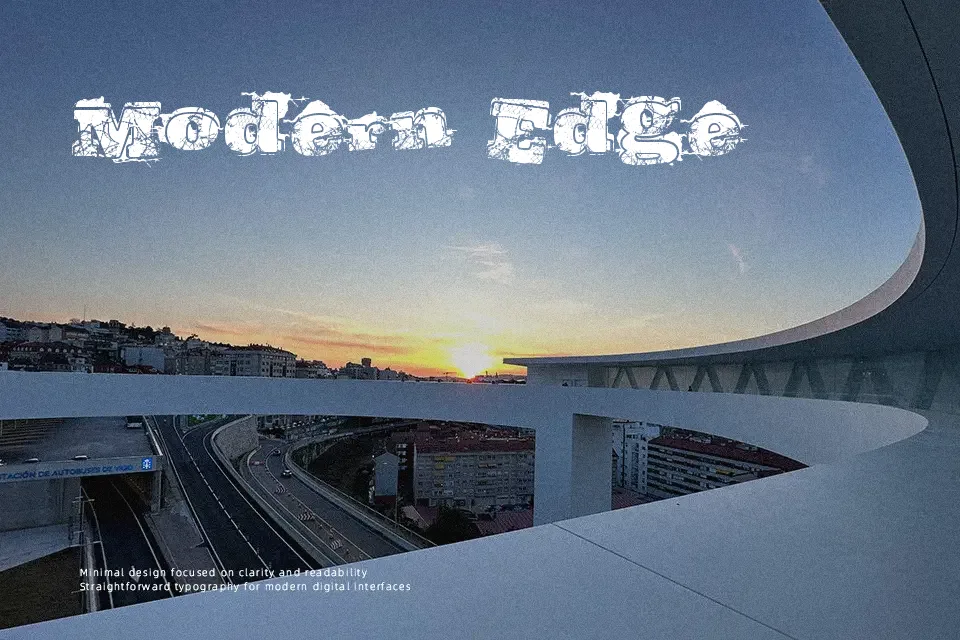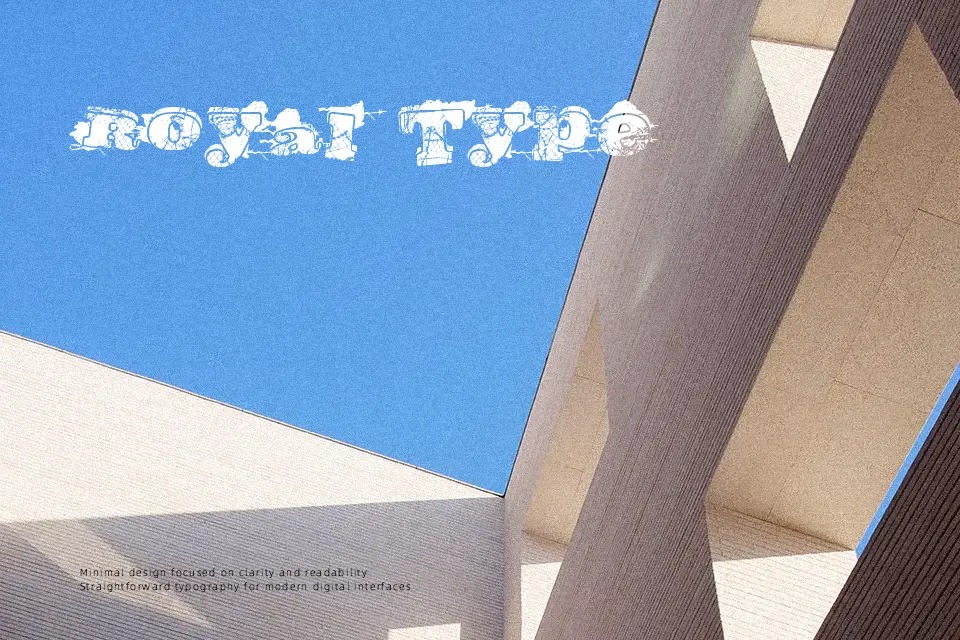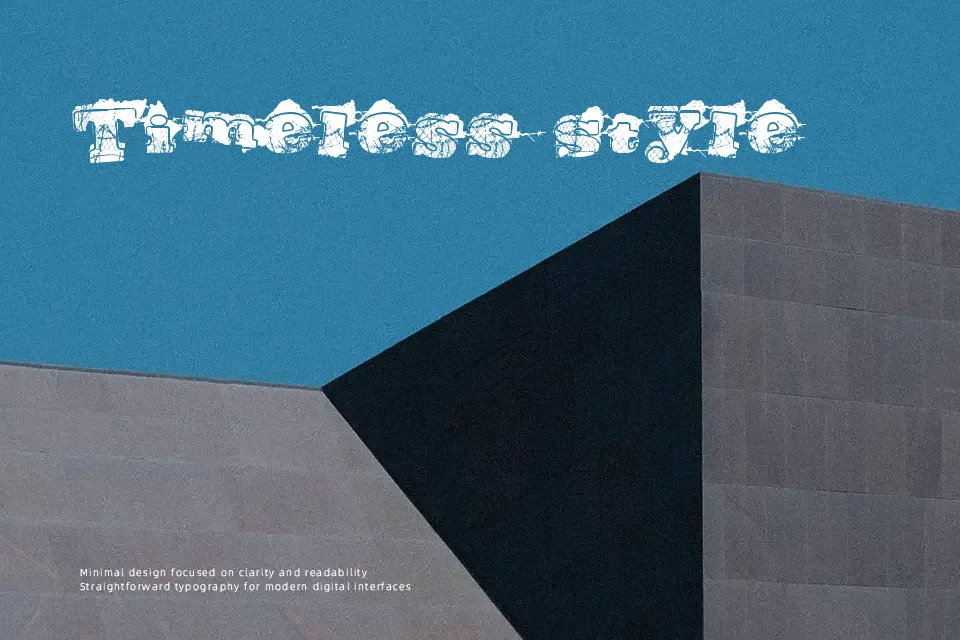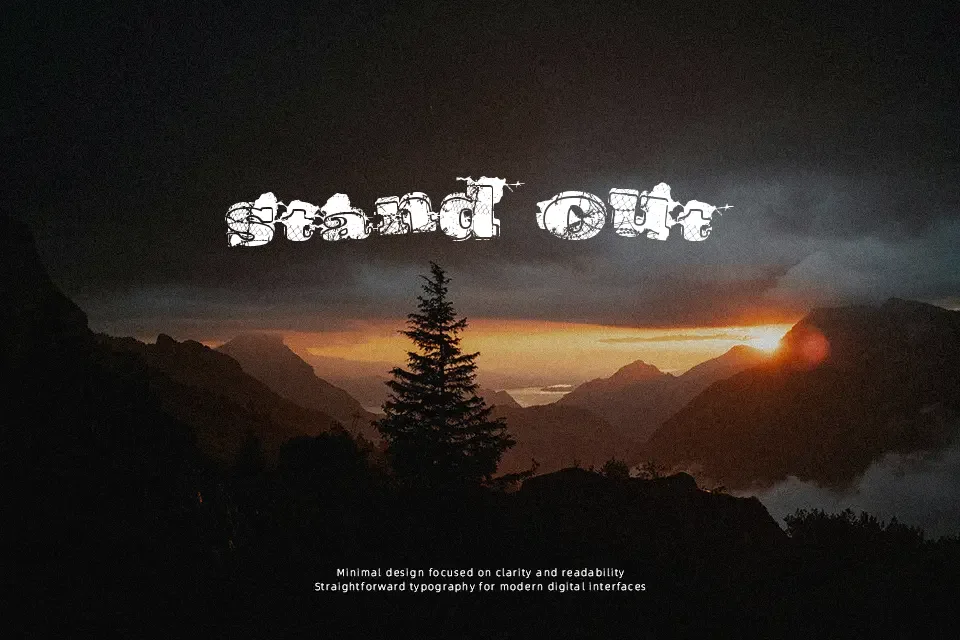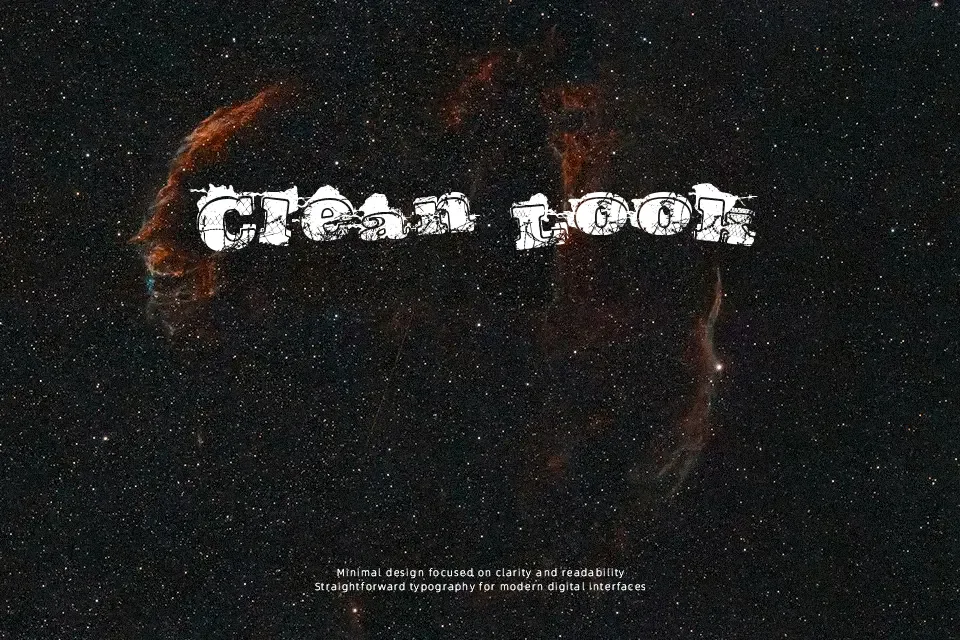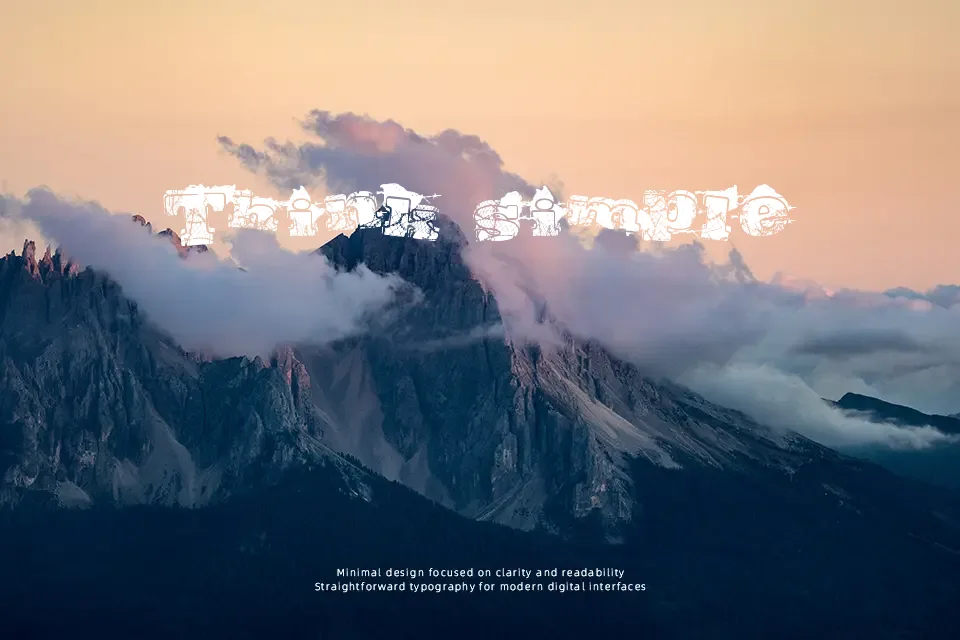
Southern Riots Font
Southern Riots Font uses heavily distressed letterforms with irregular edges, broken stroke areas, and a rough display-oriented texture. Its compact, forceful shapes create a dense visual rhythm that works best in large words and short phrases. The design remains most legible when given generous scale and clear contrast against the background. It suits music posters, event graphics, and apparel artwork that need an abrasive printed look. Fine details and damaged contours become harder to separate at smaller sizes, so the typeface is not a comfortable option for extended reading or tightly packed text.
Perfect for advertising, logo, and music, with a dark and decorative style.